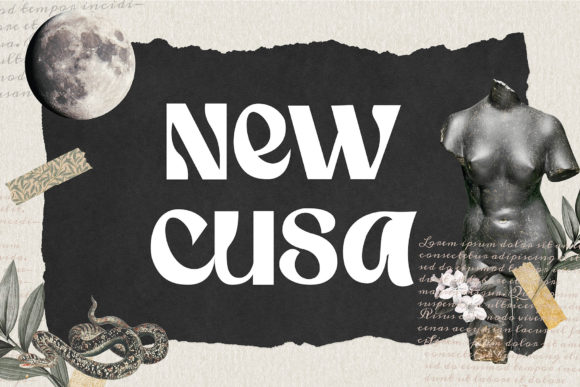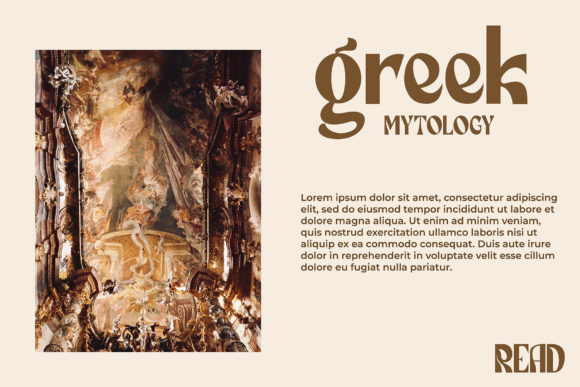
Narnia Font
Narnia is a psychedelic inspired display font. It’s retro, bold, and playful. Add it confidently to your favorite creations and let yourself be amazed by the outcome generated.